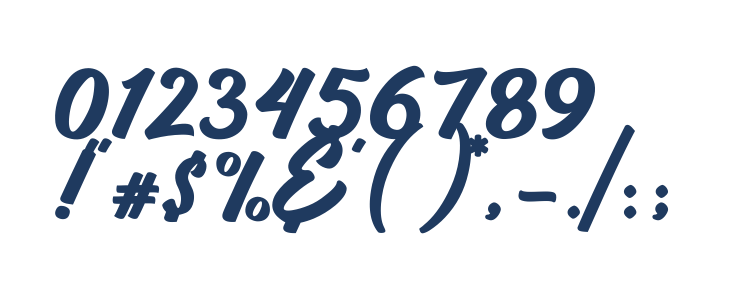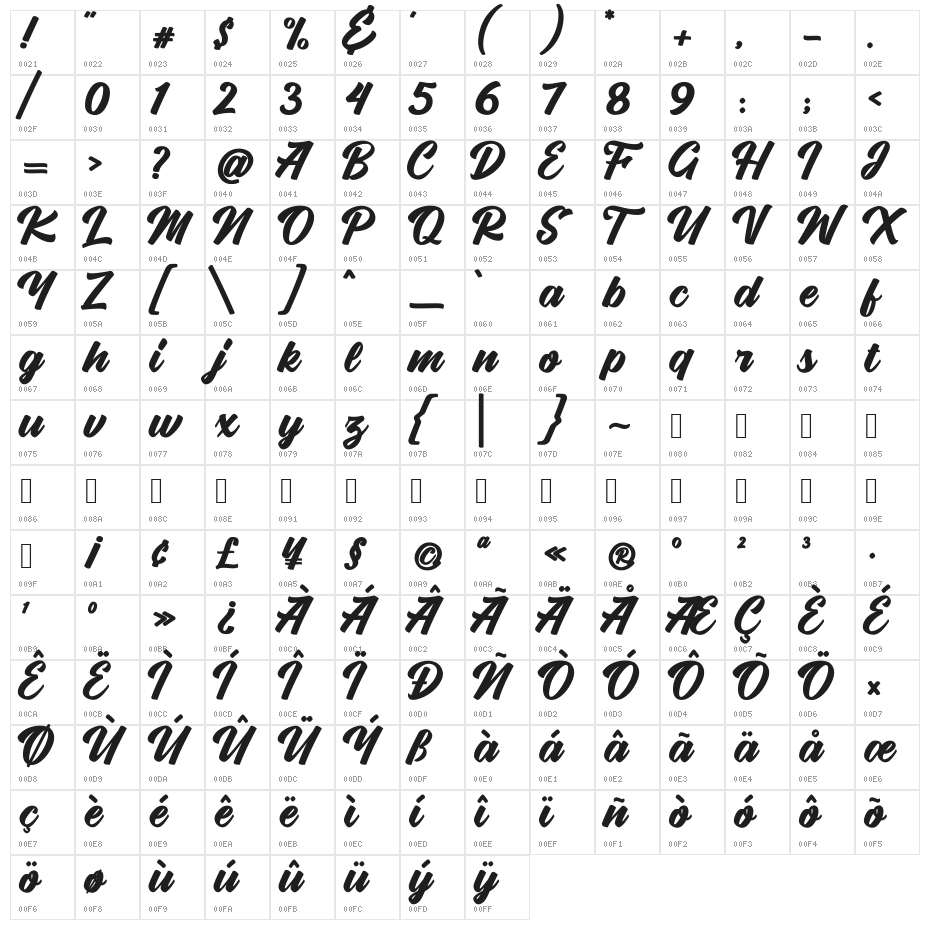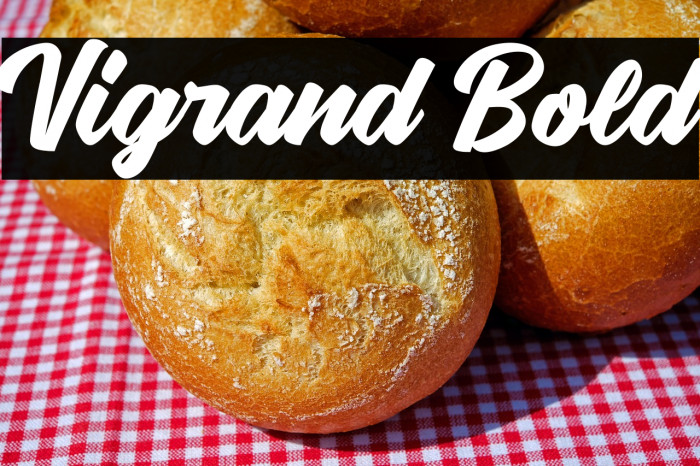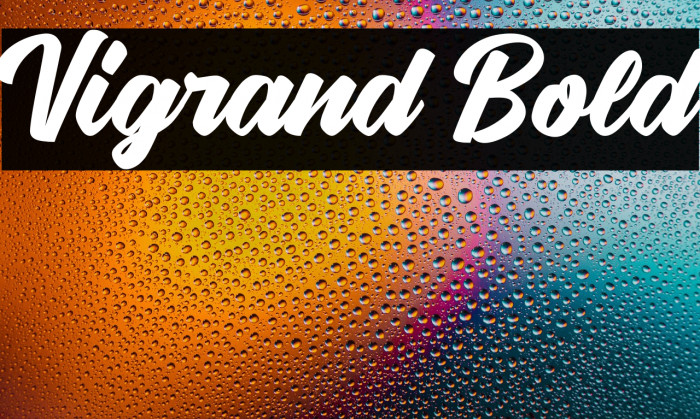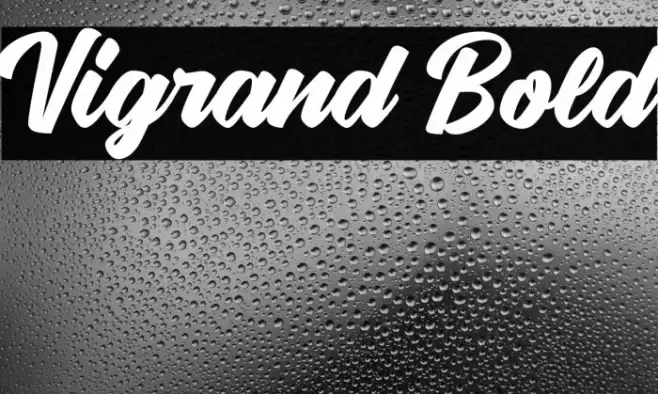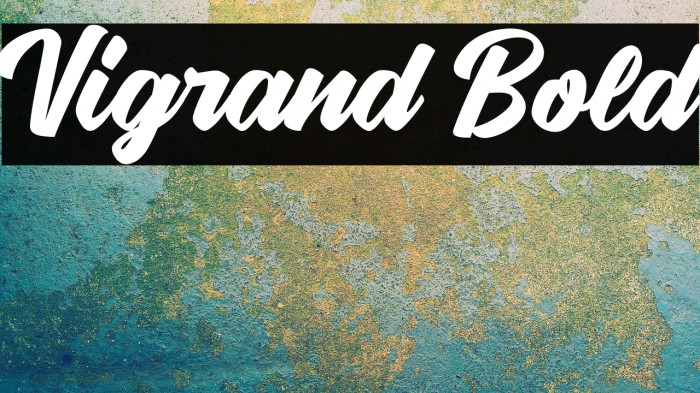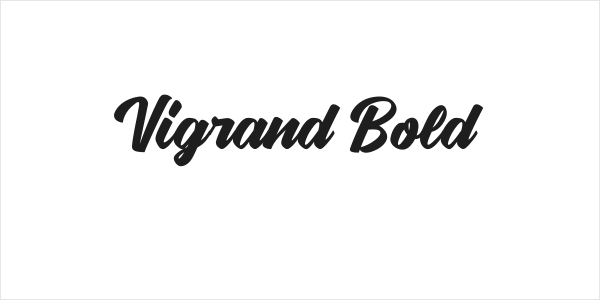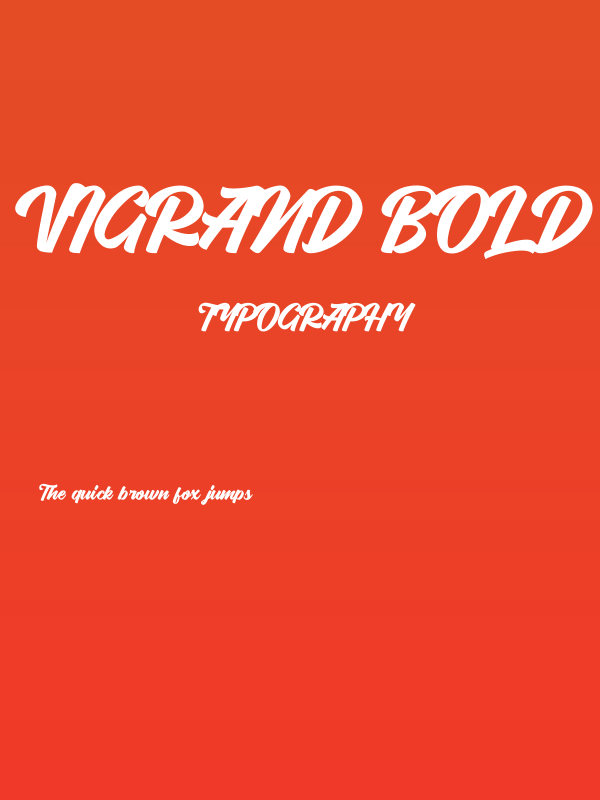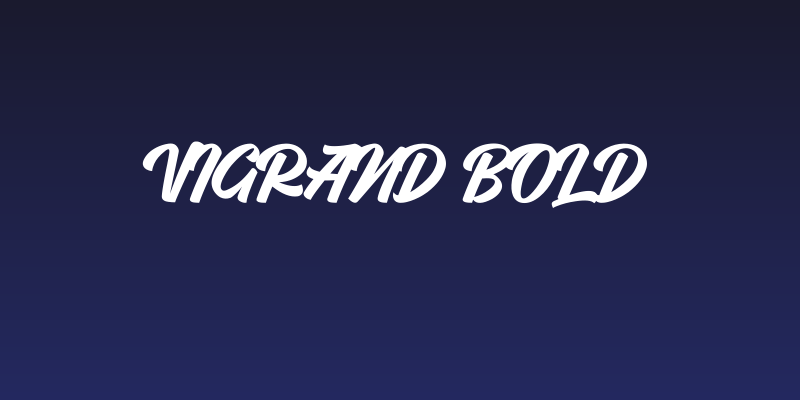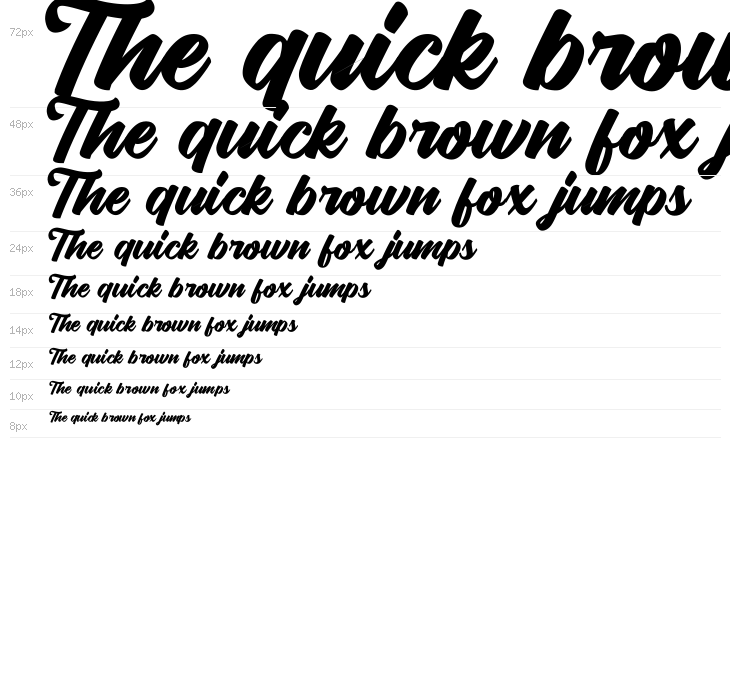
Vigrand Bold Font
Vigrand Bold Description
This font features a bold and dynamic script style, characterized by its flowing, cursive letterforms that exude a sense of energy and movement. The strokes are thick and consistent, providing a strong visual impact. The uppercase and lowercase letters are designed with smooth curves and a slight slant, enhancing the font's fluidity. The numerals and special characters maintain the same boldness and style, ensuring uniformity across all characters. This font is ideal for projects that require a touch of elegance and flair, making it suitable for branding, invitations, and artistic designs.